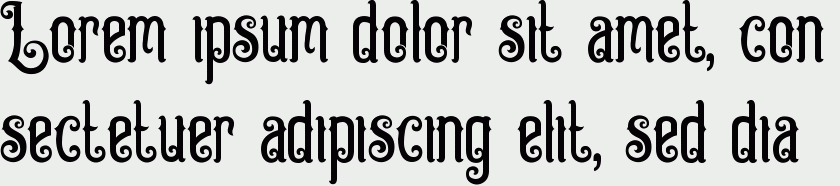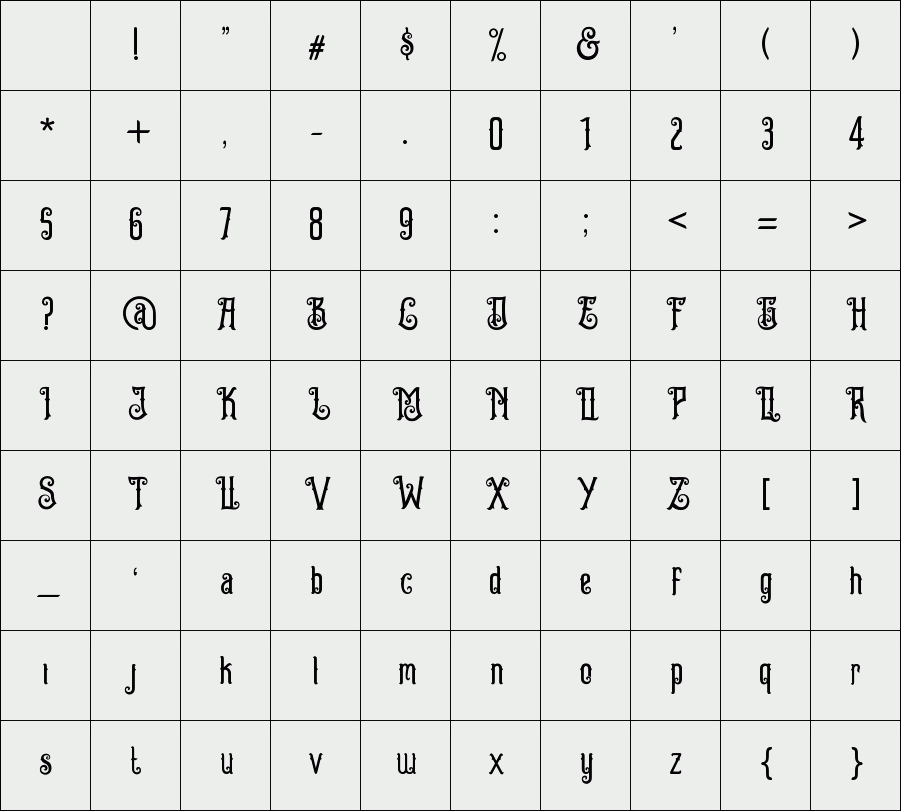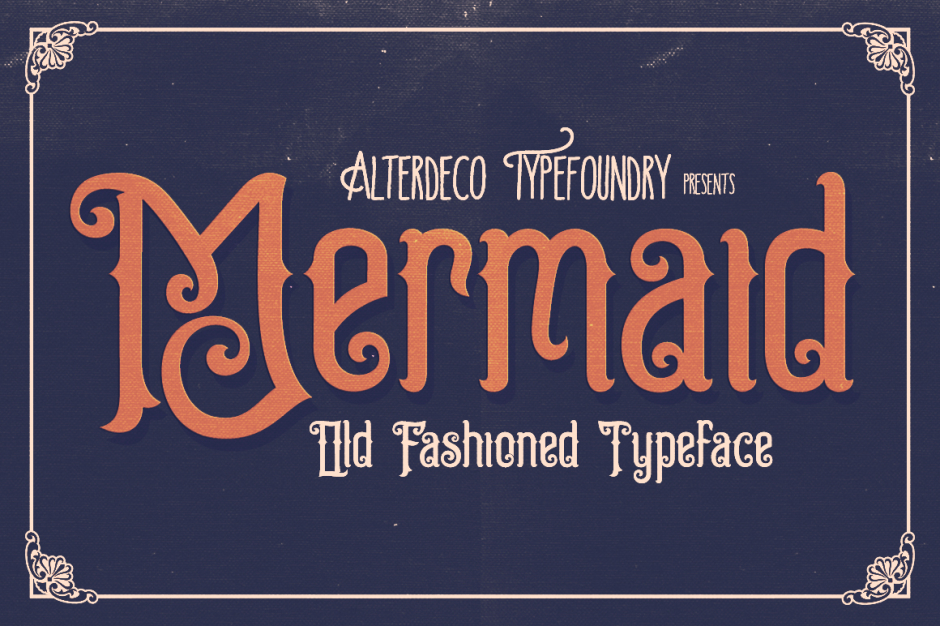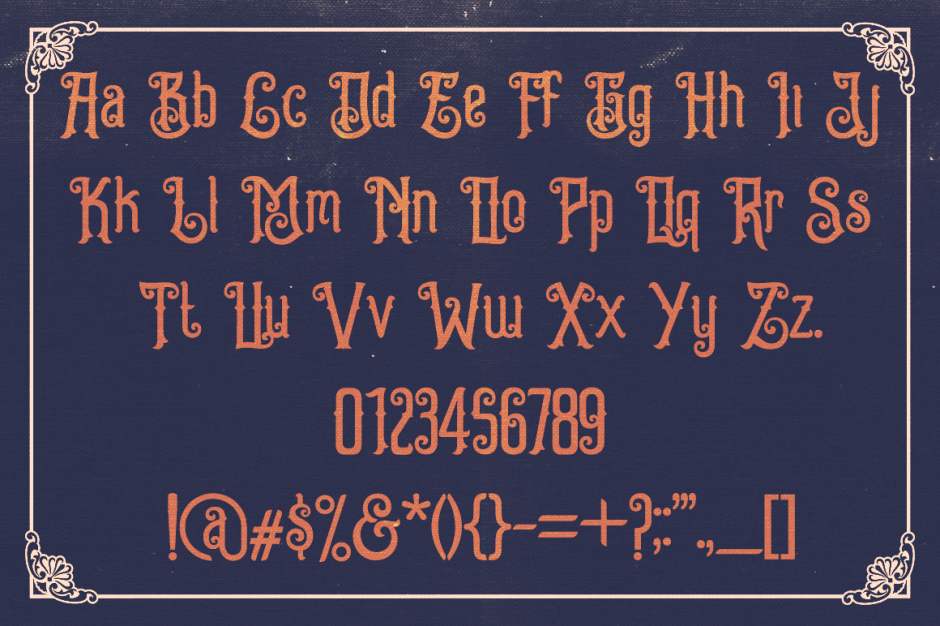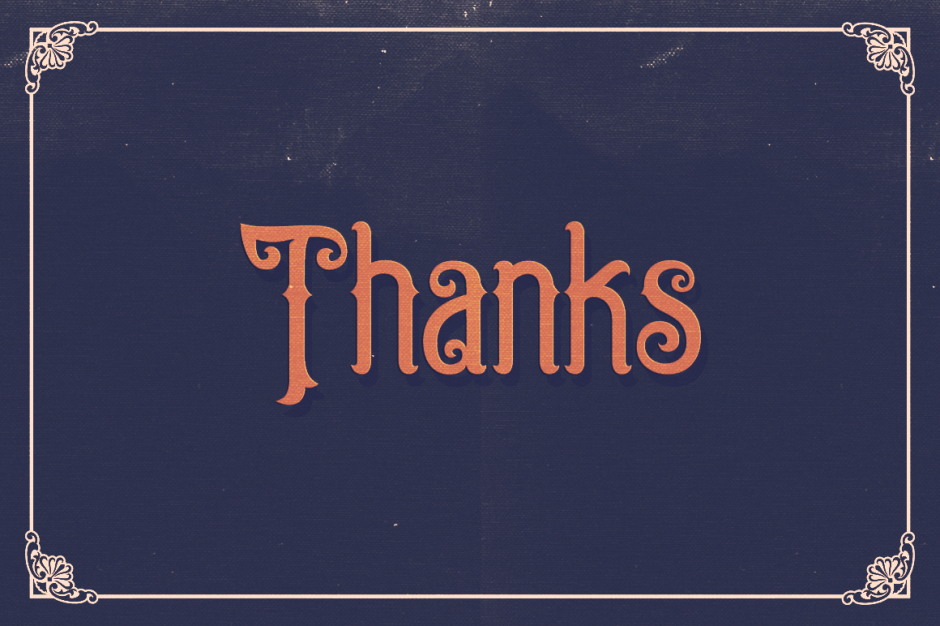
Mermaid Typeface
Mermaid Typeface is an old fashioned typeface, inspired by victorian and ornamental typography styles, it's include a web font version, so you can use it for website purpose.